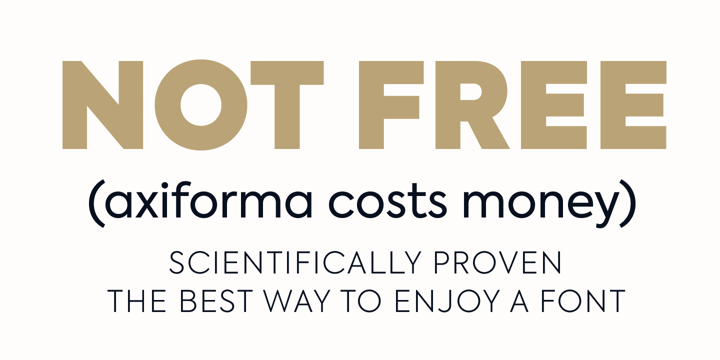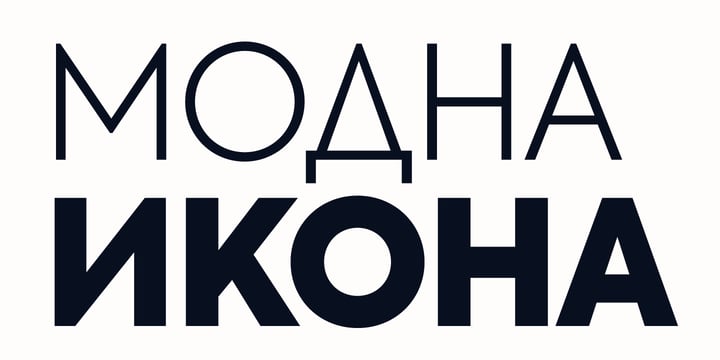
Axiforma
by Monotype
The Axiforma Font Family was designed by Galin Kastelov and published by Monotype. Axiforma contains 20 styles and family package options.
Axiforma was designed with the single idea of creating a font that starts with the letter A, because let's face it, this is the best letter. For those of you who didn't see it coming, Axiforma is a /drum roll/ geometric sans in 20 weights. If you are thinking "Oh boy, another geometric sans", you clearly know your stuff. Yet, Axiforma is different in at least three crucial ways: 1) It's made by me 2) It's not free 3) It's polite and humble Additionally, Axiforma is packed with Opentype such as oldstyle numbers, fractions, case sensitive alternates, localized forms, stylistic sets, cyrillic alphabets (Bulgarian & Russian) and many more. Basically it's quite extensive and kinda great. Upon using Axiforma, clients will start to behave differently around you and may even start paying you. Your spouse will start working out again just to gain your attention and your kid will become instantly popular at school. After all you are using Axiforma and rumors do spread quickly. That's what we are talking about - raw font power. With Axiforma regular typed text is suddently transformed into first class design. That includes branding, posters, headlines, display, presentation materials, websites, logotypes, etc. The world will now be your playground. To sum it up, Axiforma is badass, thus you should have it and use it everywhere.
Designers: Galin Kastelov
Foundry: Monotype
Original Foundry: Kastelov